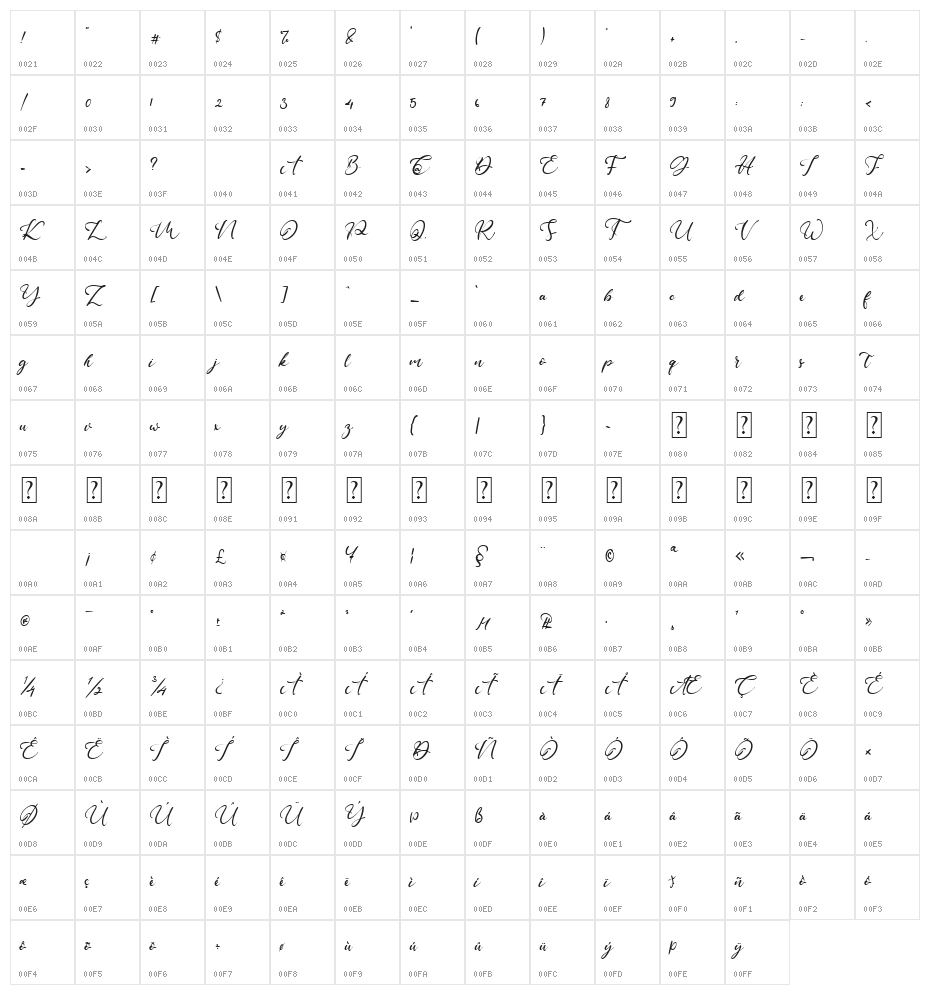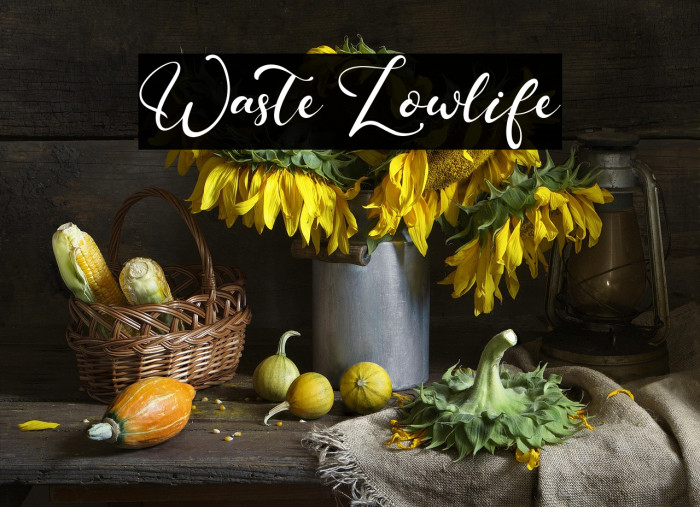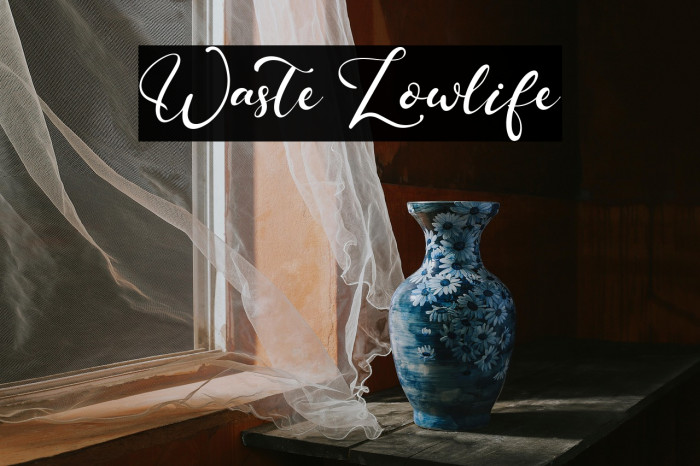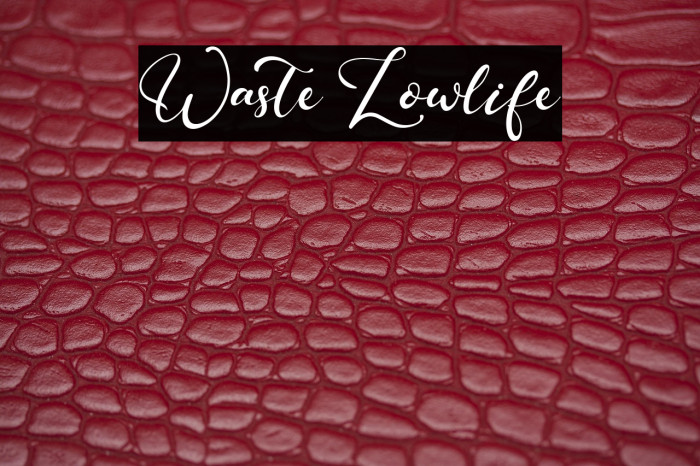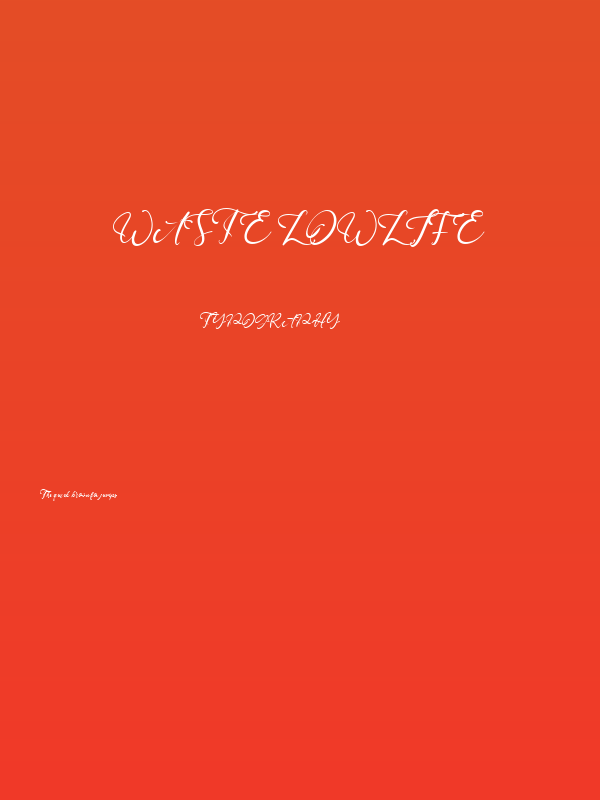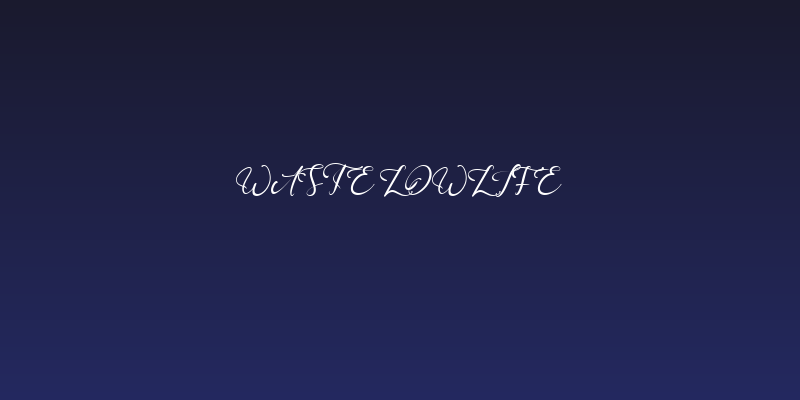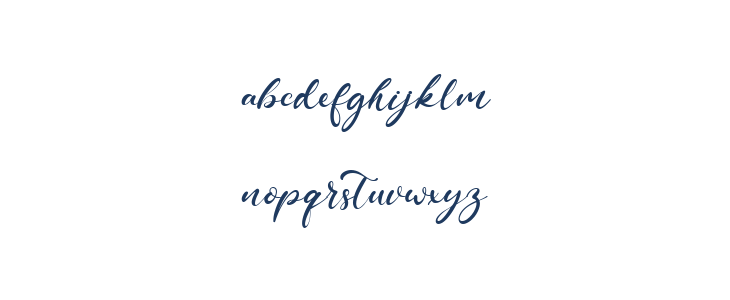
Waste Lowlife Font
Waste Lowlife Description
This elegant script font features flowing, cursive letters with a graceful and sophisticated appearance. The uppercase letters are ornate and slightly slanted, adding a touch of formality and elegance. The lowercase letters maintain a consistent flow, with smooth curves and delicate loops, creating a harmonious and fluid look. The numerals are stylish and complement the overall aesthetic, while the special characters are crafted with the same attention to detail. This font exudes a sense of refinement and is perfect for projects that require a touch of class and elegance.
| Proposed Projects | Ideal for wedding invitations, elegant branding, greeting cards, and luxury packaging. |